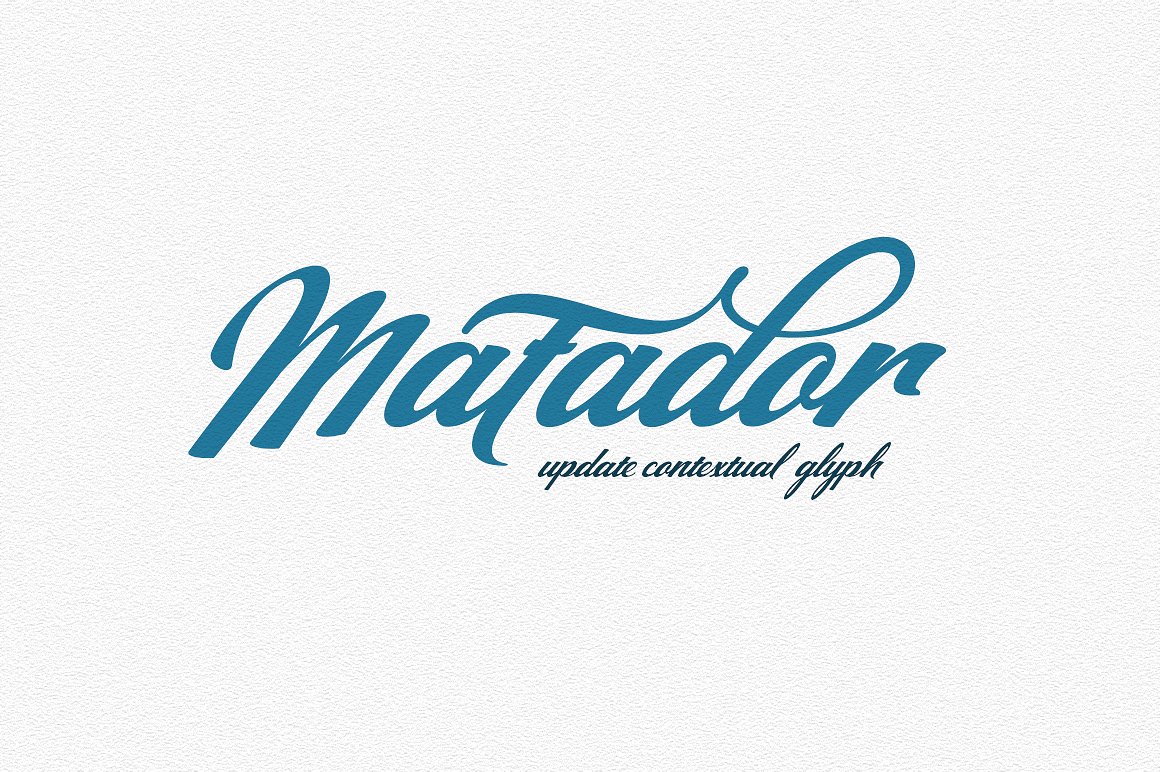
Matador Script Font
Matador Update is a font bold, so, brush script that is beautiful and unique, it is a model of modern calligraphy typefaces, in combination with a calligraphy writing style.